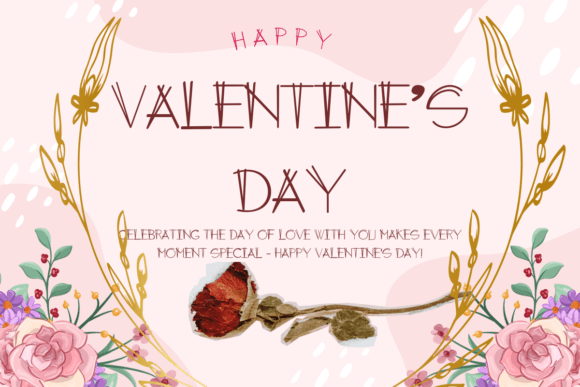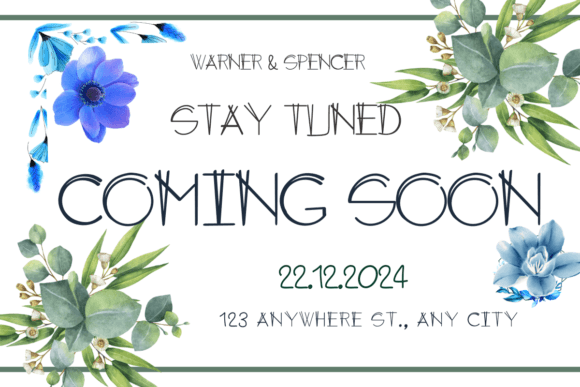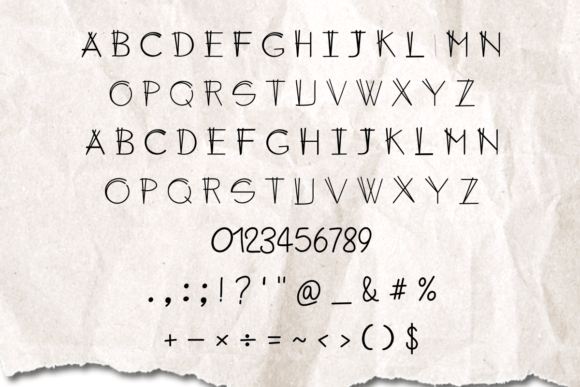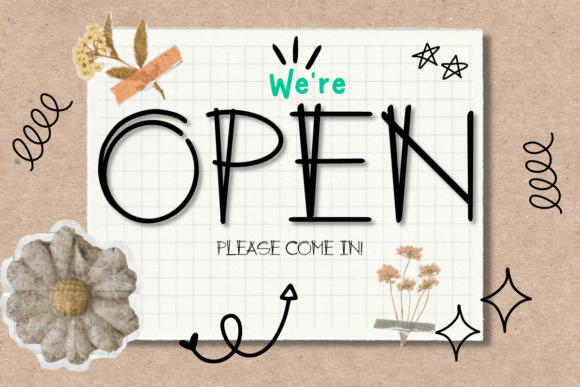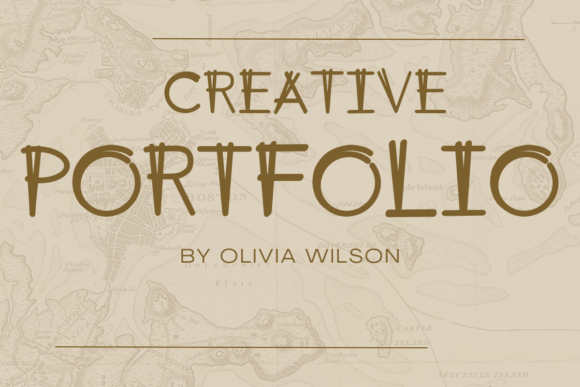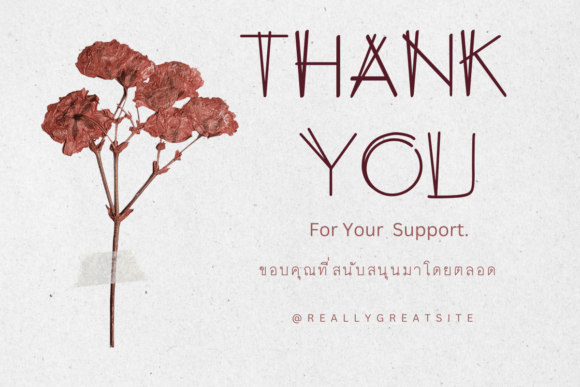
Introduction to Originol Font
Do you remember the moment when you finally found the perfect font to match your creative vision? For designers, discovering a font that perfectly captures the essence of a project can be a game-changer. It’s that “aha” moment when everything falls into place, and your design starts to come alive. For many creatives, that moment came when they stumbled upon the Originol Font – a charming, handwritten font that adds a touch of personality to any project.
As a versatile design resource, the Originol Font can be used for a wide range of creative projects, from taking notes and writing a diary to making greeting cards and designing social media posts. Its high-quality, quirky aesthetic makes it an excellent choice for designers looking to add a unique touch to their work. And the best part? It’s available for free download, making it an accessible resource for designers of all levels.
Key Features of Originol Font
- Unique, handcrafted design for creative projects and digital art
- High-quality, professional font suitable for a variety of design resources
- Comes in a single weight with a large character set, including international characters
Honest Review: Originol Font
I recently had the chance to experiment with the Originol Font, and I must say it’s an interesting addition to any designer’s toolkit. With its unique blend of modern and classic elements, it’s perfect for creative projects that require a touch of sophistication.
One of the standout features of the Originol Font is its high-quality design. The font is available for free download, making it an excellent resource for designers working on a budget. The transparent background also allows for seamless integration into various design elements.
- ✨ Unique blend of modern and classic elements
- Limitations:
- ⚠️ Limited character set (may not be suitable for extensive text-based projects)
- ⚠️ May require additional formatting for optimal display on certain devices
Overall, I think the Originol Font is a solid choice for designers working on creative projects. While it may have some limitations, its unique design and high-quality construction make it a valuable addition to any design resource library.
Tips for Getting the Most Out of Originol Font
Experiment with different font sizes, colors, and styles to create a unique look for your design. Use the Originol Font in conjunction with other design resources, such as images and graphics, to create a visually appealing project.
The Originol Font is ideal for creative projects, such as graphic design, typography, and branding. It’s also useful for presentations, documents, and websites that require a high-quality, professional-looking font with a transparent background.
Is the Originol Font suitable for high-resolution designs?
Yes, the Originol Font is designed to be a high-quality design resource, making it perfect for high-resolution designs, such as those used in print materials, billboards, or digital signage. The font is optimized for crisp and clear rendering at various sizes and resolutions.